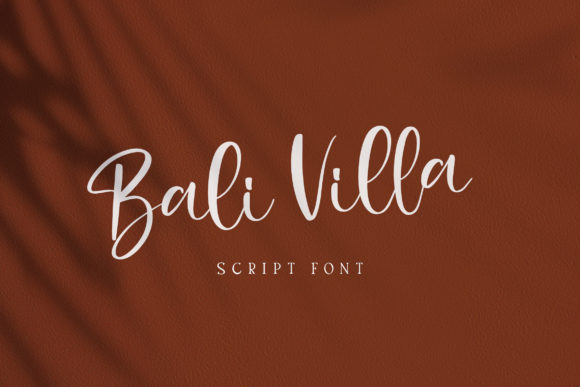
Get ready to immerse yourself in a world of elegance and charm with the Bali Villa Font! This stunning script font exudes a timeless appeal, capturing the essence of handwritten beauty. Prepare to be mesmerized by its intricate flourishes and graceful curves that dance across the page, leaving a trail of enchantment in their wake.
Let your creativity soar with Bali Villa Font, the ultimate companion for your cherished projects. Whether you're a seasoned designer or just starting your artistic journey, this font is the key to unlocking your design dreams. Its versatility knows no bounds, effortlessly elevating blog posts, social media designs, logos, invitations, and any project that calls for a touch of sophistication.
Bali Villa Font is more than just a collection of letters; it's an expression of your unique style and personality. Its elegant strokes will lend an air of refinement to your creations, while its delicate details will capture the attention of your audience. Imagine your words flowing across the screen, imbued with a timeless charm that will leave a lasting impression.
Step into a world of creative possibilities with Bali Villa Font. Let your imagination run wild as you craft stunning designs that stand out from the crowd. Unleash the power of this font to create captivating blog posts that draw readers in and keep them engaged until the very end. Design captivating social media graphics that will make your posts shine and attract followers like never before.
Bali Villa Font is your gateway to a world of creative expression. Its timeless beauty will elevate your projects to new heights, leaving a lasting impression on your audience. Don't miss out on this opportunity to add a touch of elegance and sophistication to your designs. Embrace the allure of Bali Villa Font today and embark on a creative journey like no other.